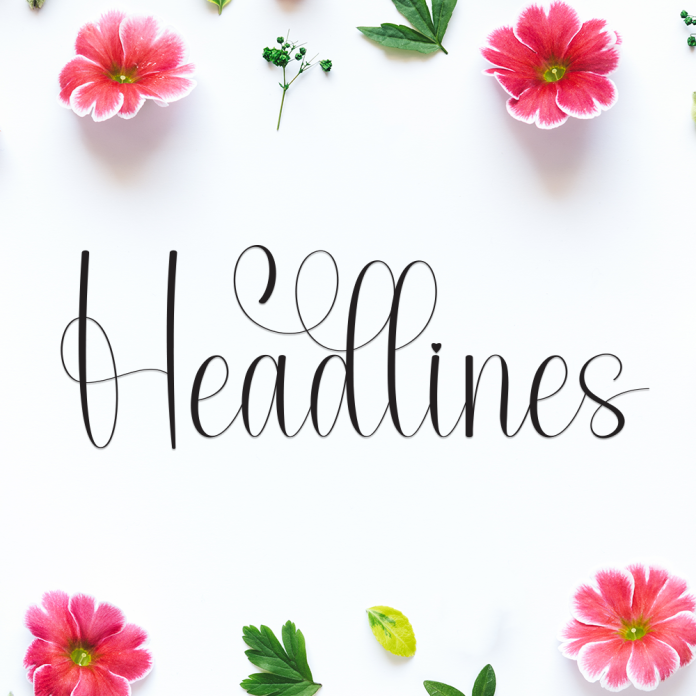
Headlines is a striking handwriting font that combines casual script charm with a bold, attention-grabbing presence. It’s perfect for making statements that feel both personal and powerful.
Designed to look like quick, stylish pen strokes, Headlines brings authenticity and energy to any layout, whether it’s for posters, blog headers, branding, or signature quotes.
Strong handwritten style with character
Ideal for bold headlines and social media graphics
Great for branding, quotes, and editorial content
Make your message stand out with the bold personality of Headlines.